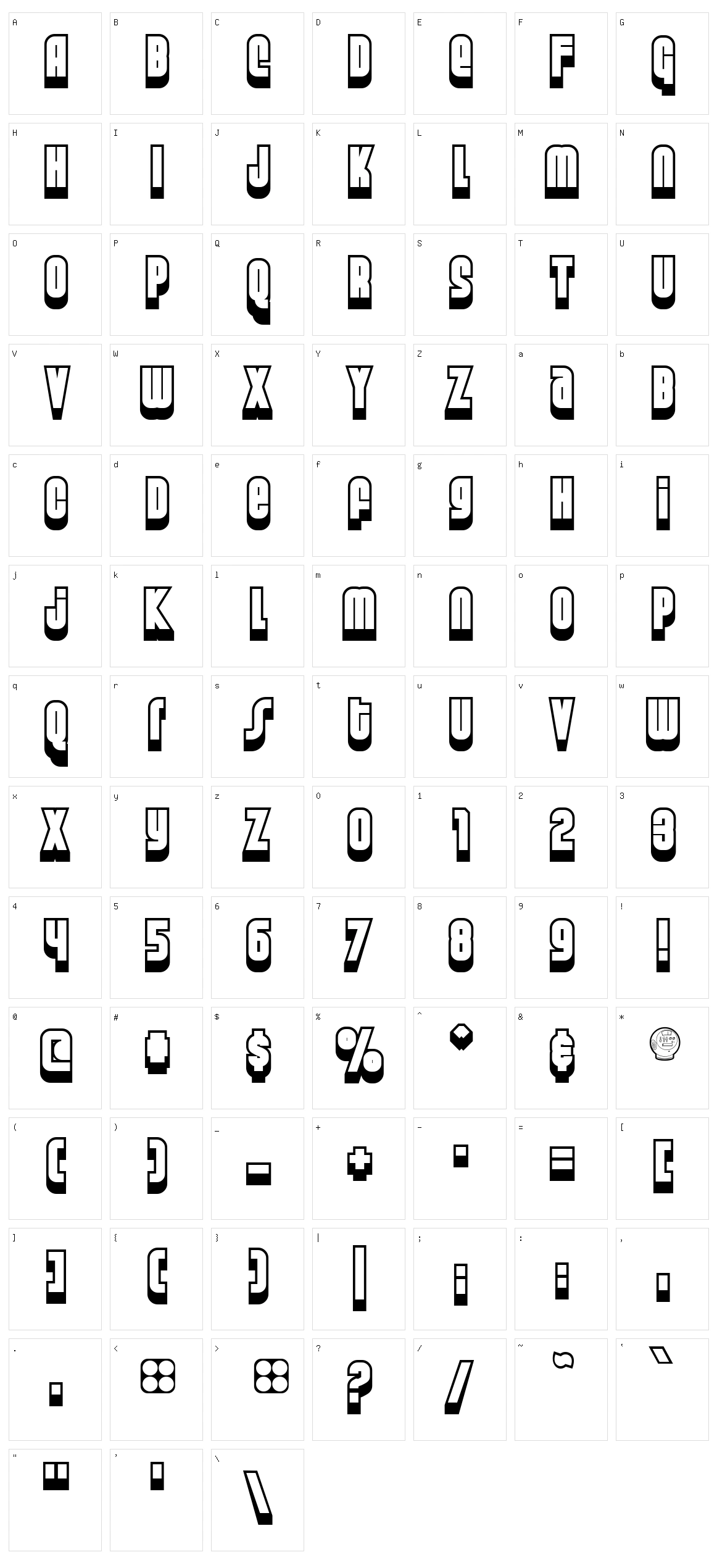
The free font Weltron Special Power 2001 is carefully designed by Fontalicious, showcasing a thoughtful balance of creativity and usability and falls under the Groovy font style. When you download the ZIP file, it contains only 72.16 KB of font files, making it lightweight and quick to download. Please review the license details below to understand permitted usage and distribution rights. If license information is not available, we recommend using this font for personal projects only or contacting the author directly for commercial usage permissions.